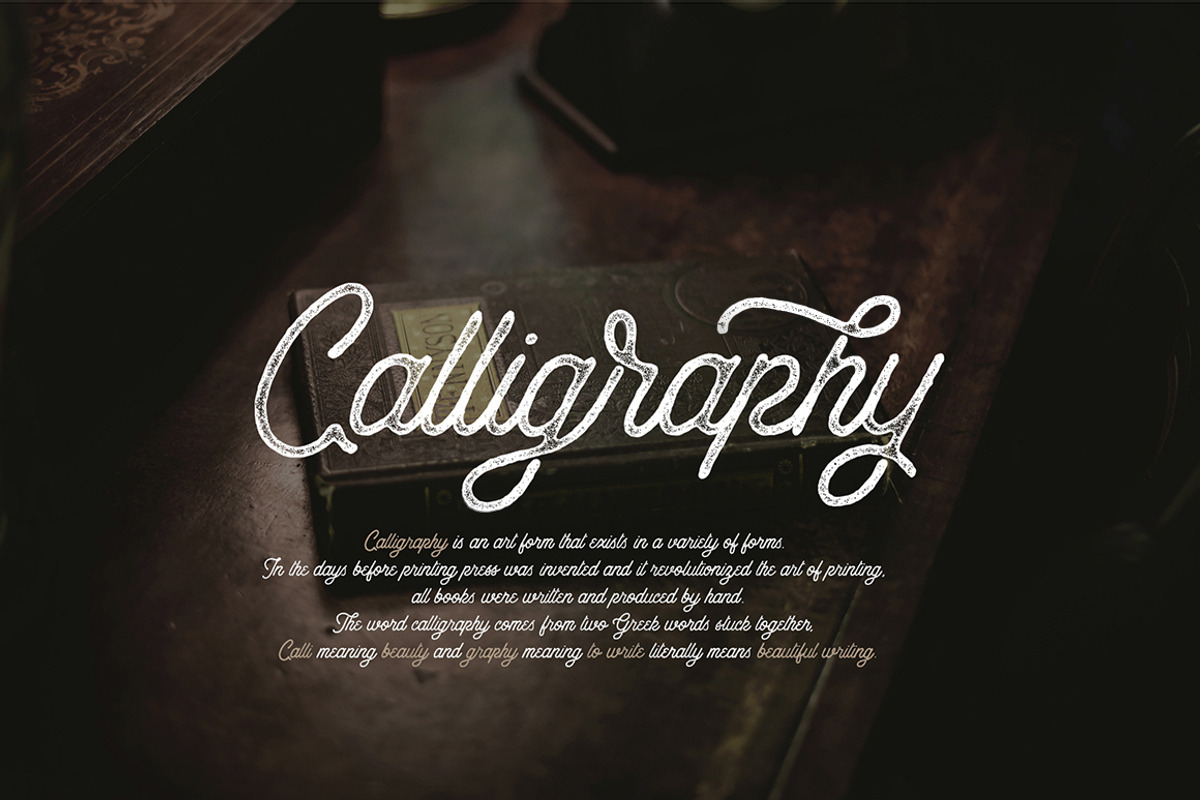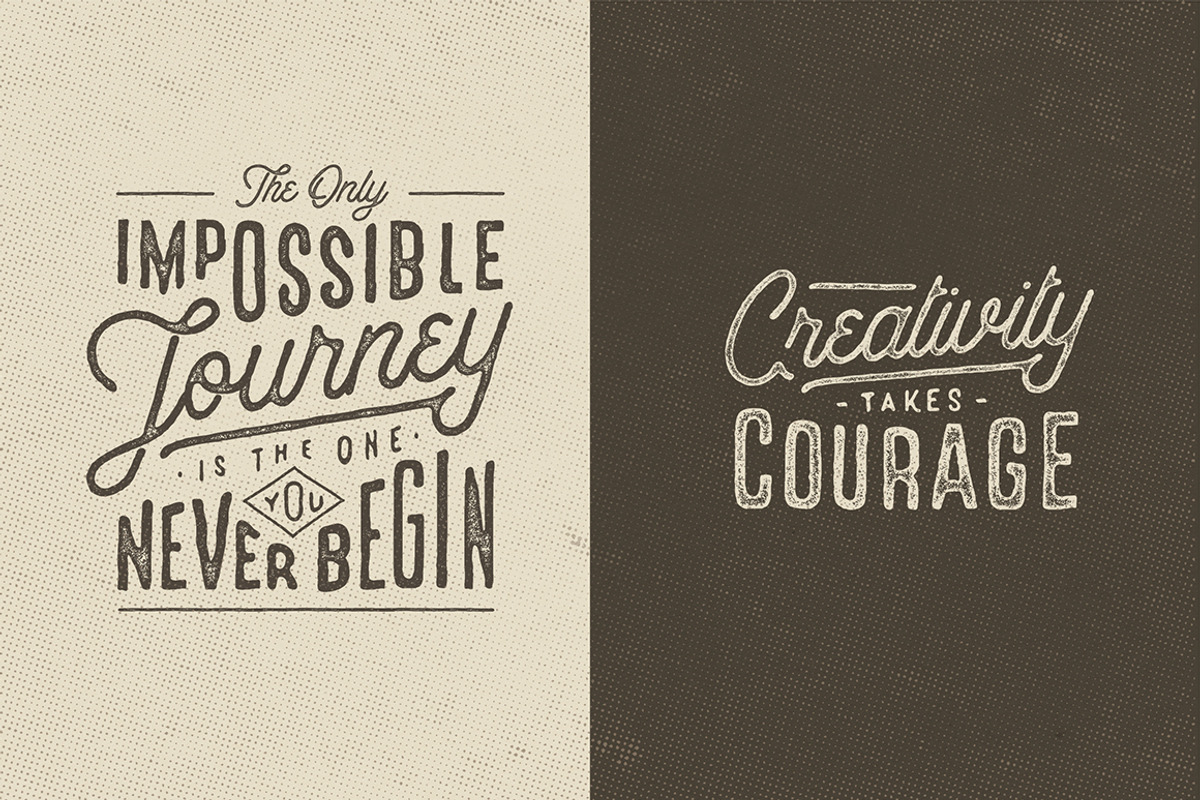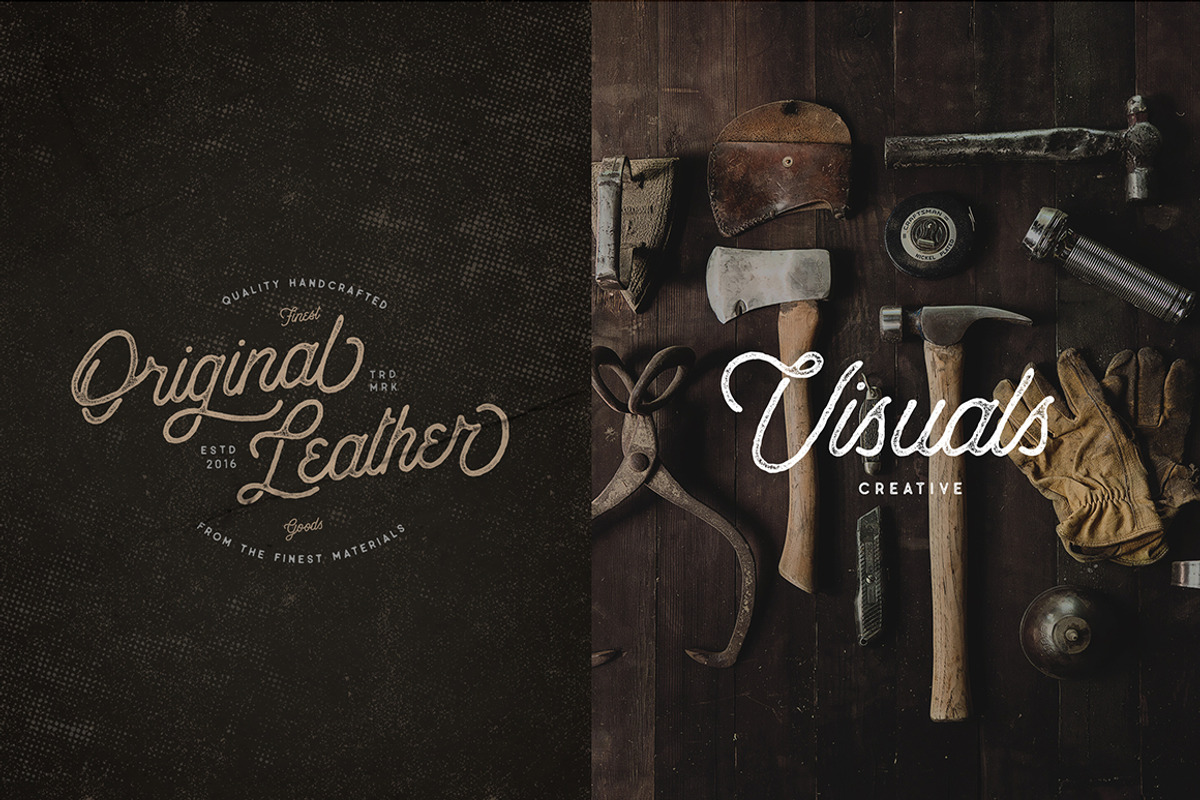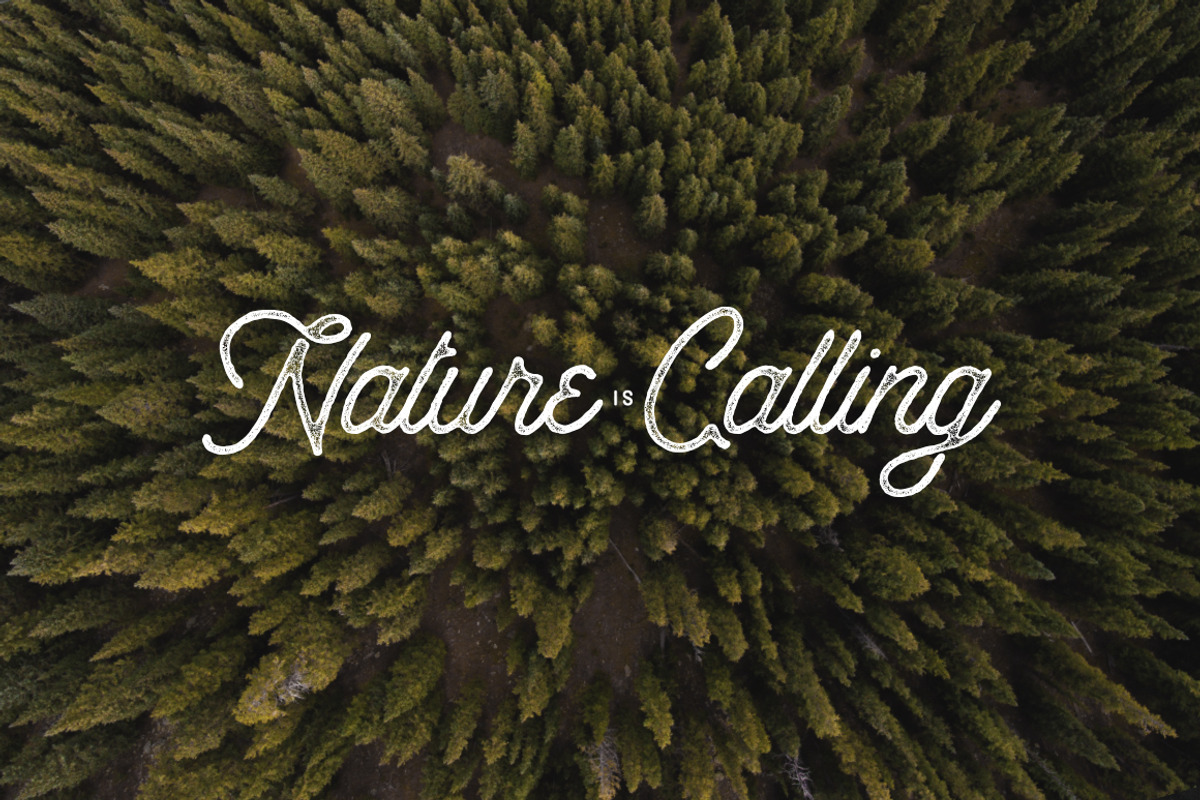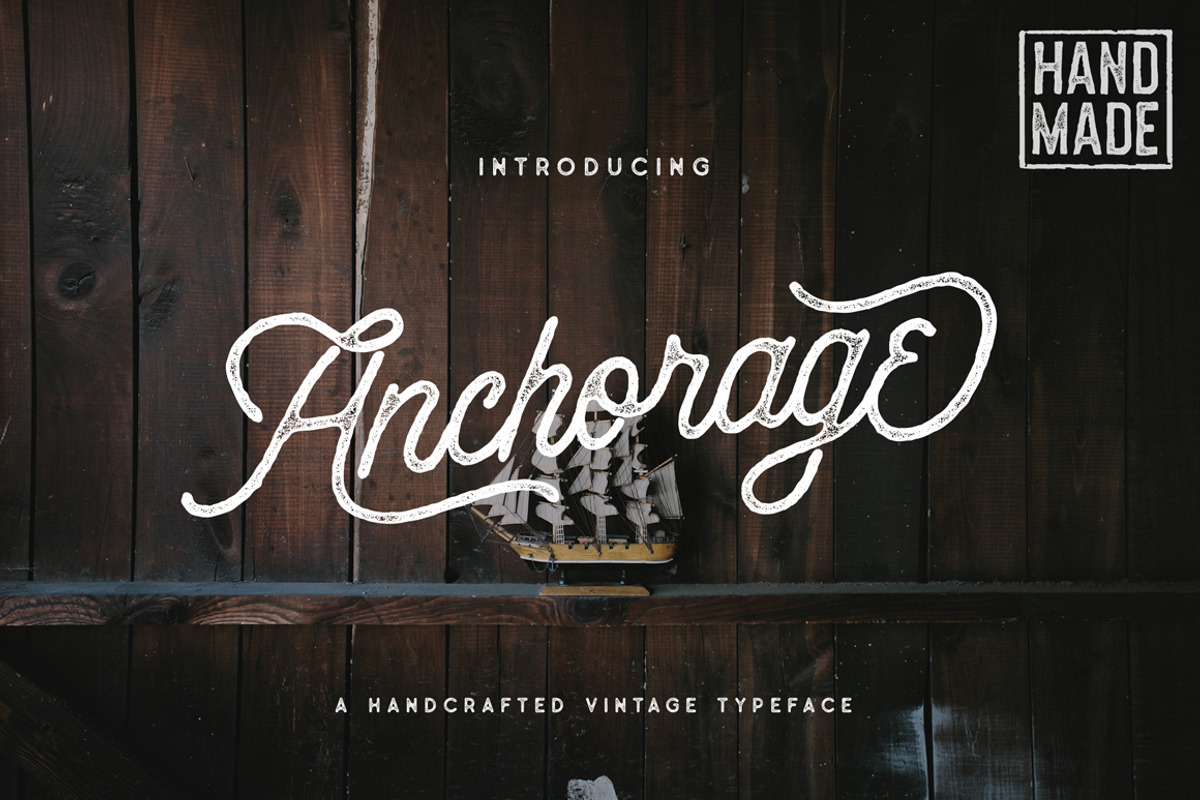
Anchorage Script Typeface
Anchorage Script Typeface by Wandery Supply is a font selected for branding, posters, packaging, typography.
- Suitable for any graphic designs such as branding materials, t-shirt, print, business cards, logo, poster, t-shirt, photography, quotes .etc
- Come with many alternates character, titling, terminal forms, ligature, and swash, so that you have more options.
Why Anchorage Script Typeface is worth a look
Anchorage Script Typeface by Wandery Supply fits naturally into Branding, posters, packaging, typography.